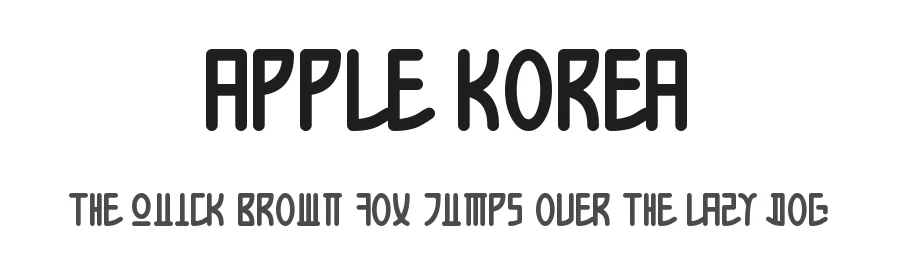
About Matrix Font
Matrix font, only capitals, some are better then others.
Tip: add lines with brush tool between the letters to get the repicla effect from all the posters.